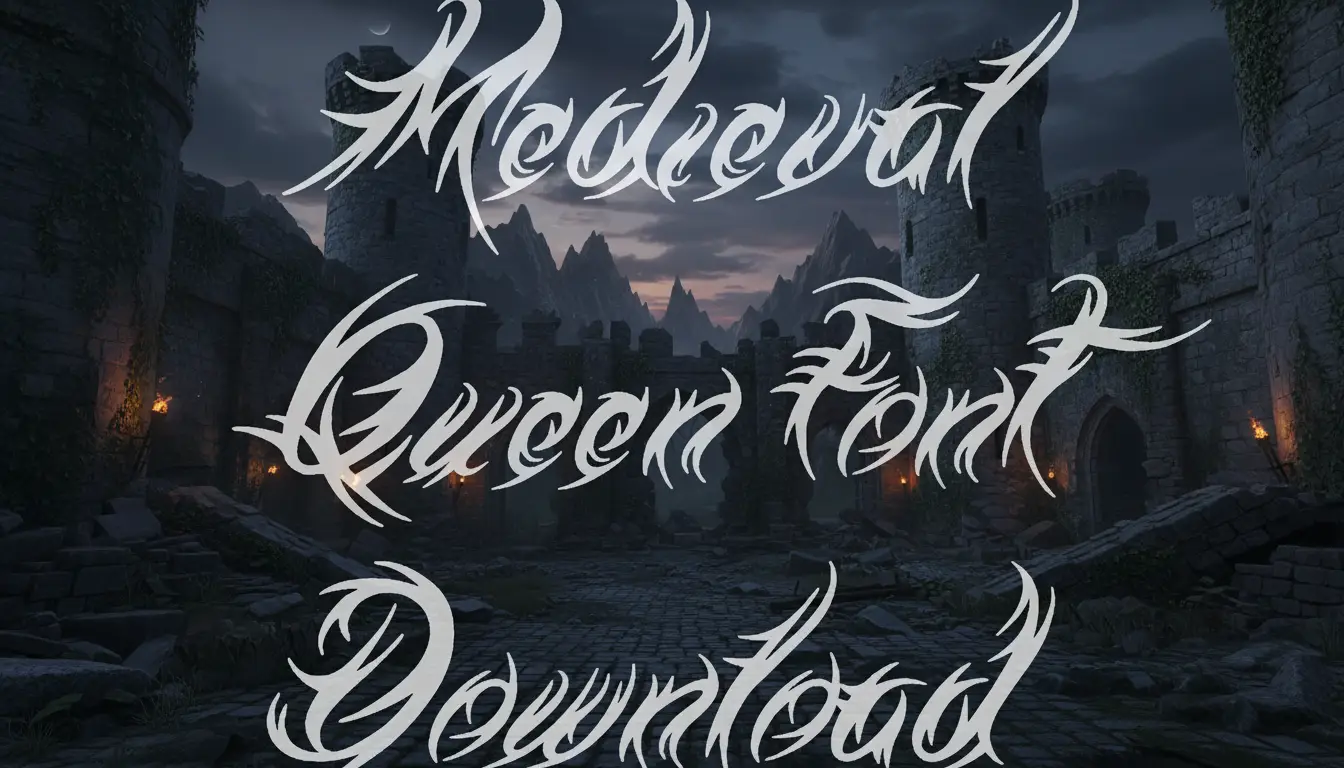
Medieval Queen Font
Medieval Queen is a gothic font. Its pointed, heavy strokes give it a dark, dramatic blackletter look. You can download it for free and test it with your own words in the preview above.
What You Can Type With Medieval Queen
With complete upper and lowercase letters and all ten digits, Medieval Queen is ready for real wording, not just a single headline. Common punctuation such as &, !, ? and @ is included as well. It also has the accented letters you need for Spanish, French, German, Portuguese and Italian.
Where Medieval Queen Works Best
Medieval Queen is a natural fit for tattoos, metal band logos and dark fantasy titles. Blackletter is very hard to read in all caps, so type in normal upper and lowercase.
Does Medieval Queen support accented letters?
Yes. Medieval Queen includes the accented letters needed for Spanish, French, German, Portuguese and Italian, so it works for more than just English.